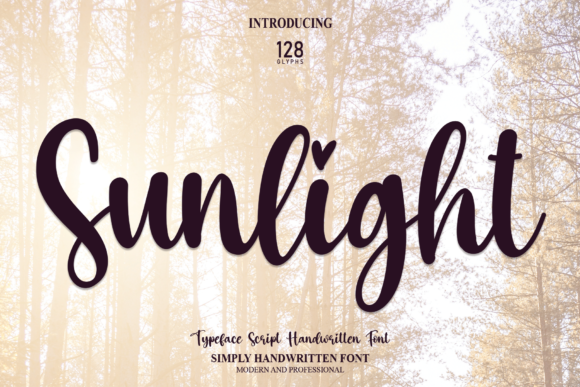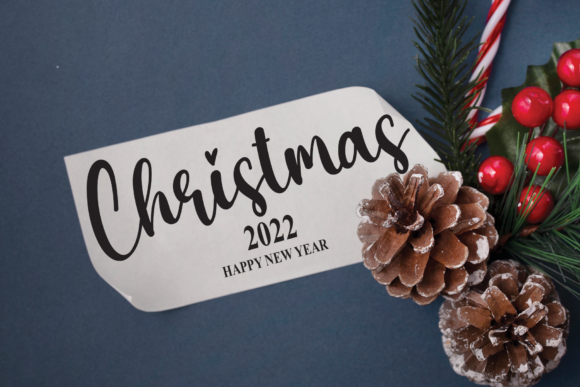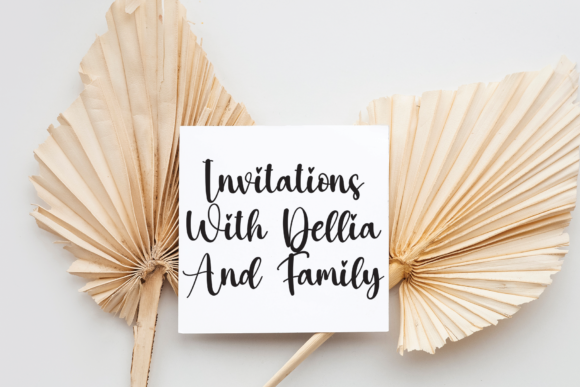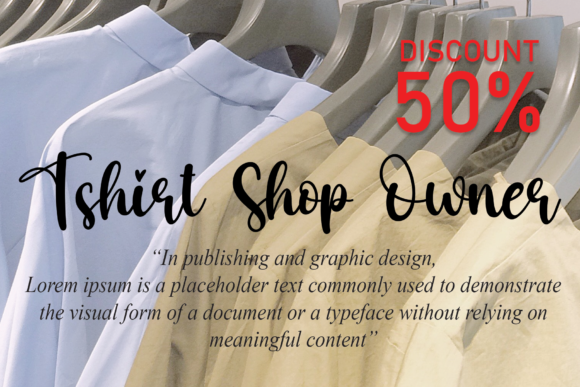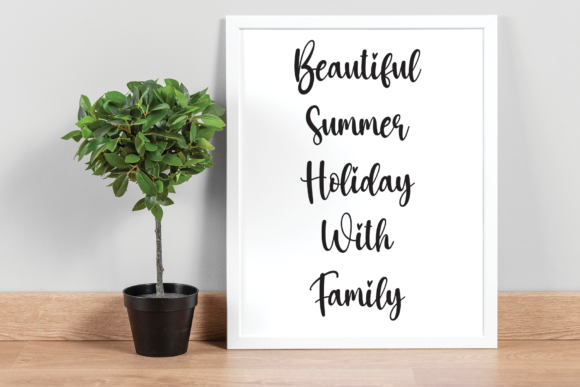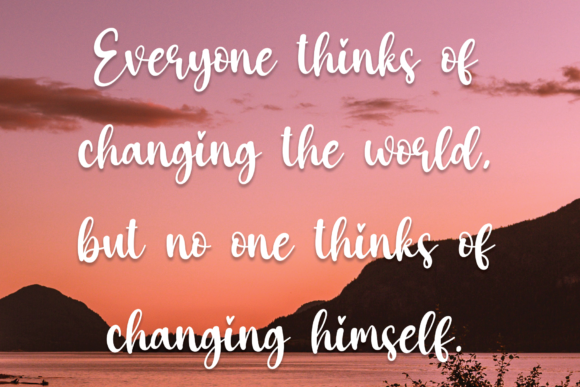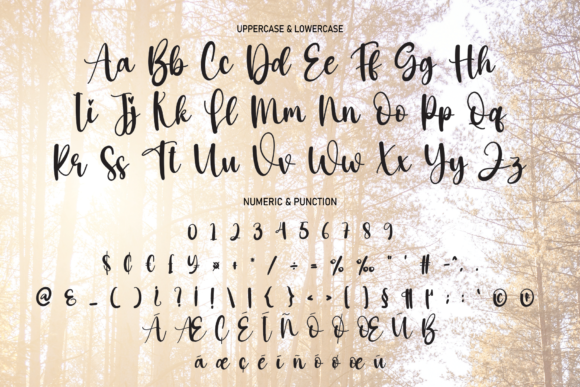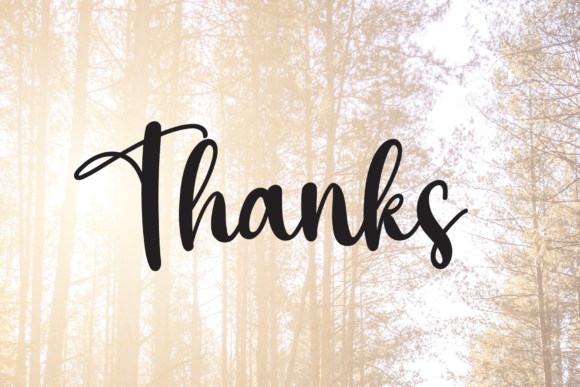
Introducing ‘Sunlight’, the latest style of letters that is set to transform your design experience. With its unique style, ‘Sunlight’ is perfect for a wide range of applications, making it a versatile addition to your design toolkit.
‘Sunlight’ is ideal for wall displays, adding a touch of elegance and sophistication to any space. Its unique style makes it a standout choice for wedding invitations, adding a personal and romantic touch to your special day.
In the digital world, ‘Sunlight’ shines on social media. It’s perfect for post logos, helping your content stand out in a crowded online space. It’s also a great choice for advertisements, adding a unique flair that catches the eye and engages the audience.
When it comes to product packaging and designs, ‘Sunlight’ is a game-changer. It adds a touch of elegance and sophistication, making any product stand out on the shelves. It’s also perfect for labels, adding a unique and stylish touch to any product.
‘Sunlight’ is not just a font, it’s a tool for expression. It’s perfect for photography, watermarks, invitations, stationery, and any project that requires a handwritten taste. It adds depth and dimension to any design, making your work stand out.
In the world of typography, ‘Sunlight’ is a game-changer. It’s a font that doesn’t just blend into the background – it stands out, makes a statement, and leaves a lasting impression. So why wait? It’s time to make your mark with ‘Sunlight’.